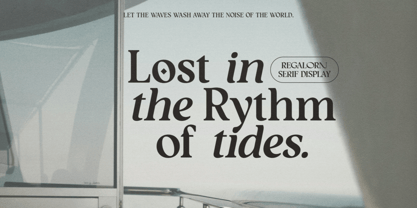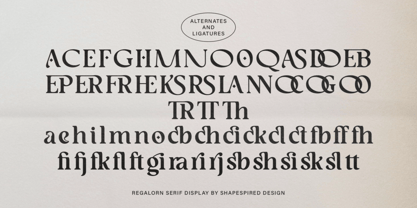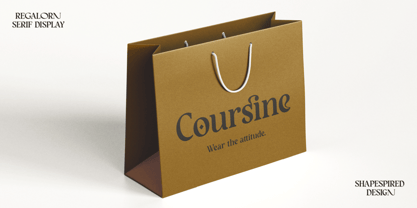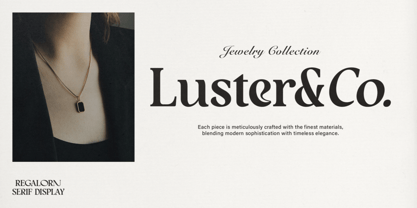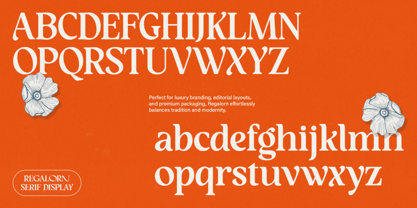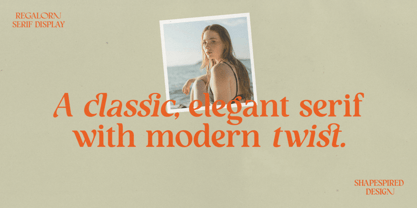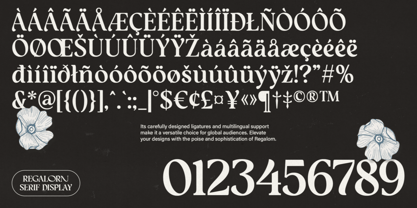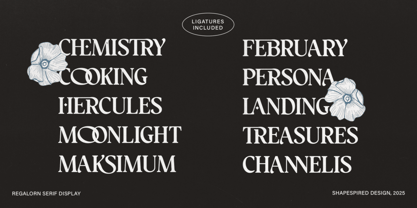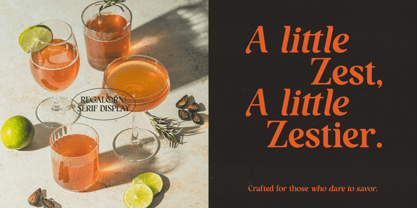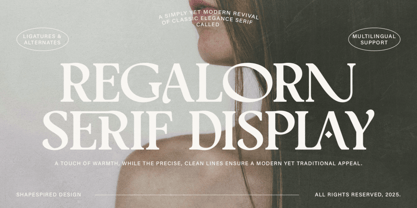
Regalorn
by Shapespired Design
The Regalorn Font Family was designed by Muhajir Saputra and published by Shapespired Design. Regalorn contains 2 styles and family package options. More about this family
Regalorn is a refined serif typeface that blends classic sophistication with modern sensibility. With high contrast, sharp serifs, and graceful curves, it commands attention while exuding timeless charm.
Available in two styles—Regular & Oblique—Regalorn adapts to both traditional and contemporary designs. The Regular version delivers a poised and authoritative presence, while the Oblique version adds dynamic elegance and movement.
Designed with ligatures & wide alternates, Regalorn offers an extra layer of versatility. Elegant letter combinations create fluid, natural connections, while the wide alternates O, C, G, Q, M, and N bring a bold, expansive look, adding grandeur to your typography.
Perfect for editorial designs, luxury branding, high-end packaging, and refined typography, Regalorn brings a touch of warmth and precision to every composition.